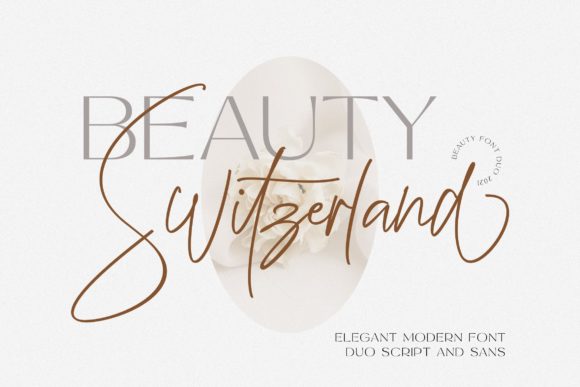
Step into a world of elegance, where words dance with grace and sophistication. Introducing Beauty Switzerland, a script font that captures the essence of luxury and distinction. Its delicate strokes and graceful curves will transform your designs into masterpieces that radiate timeless beauty.
With Beauty Switzerland, your headlines will command attention, captivating audiences with their elegance and allure. This font is the perfect choice for creating logos, branding, invitations, and any project that demands a touch of sophistication.
Crafted with precision, Beauty Switzerland's PUA encoding unlocks a treasure trove of stunning glyphs and ligatures. Elevate your designs with ease, adding intricate details and enhancements that elevate your work to new heights.
Experience the magic of Beauty Switzerland today and witness the transformative power of a font that speaks to the heart. Let your designs bloom with elegance and distinction, leaving a lasting impression that captivates and inspires.